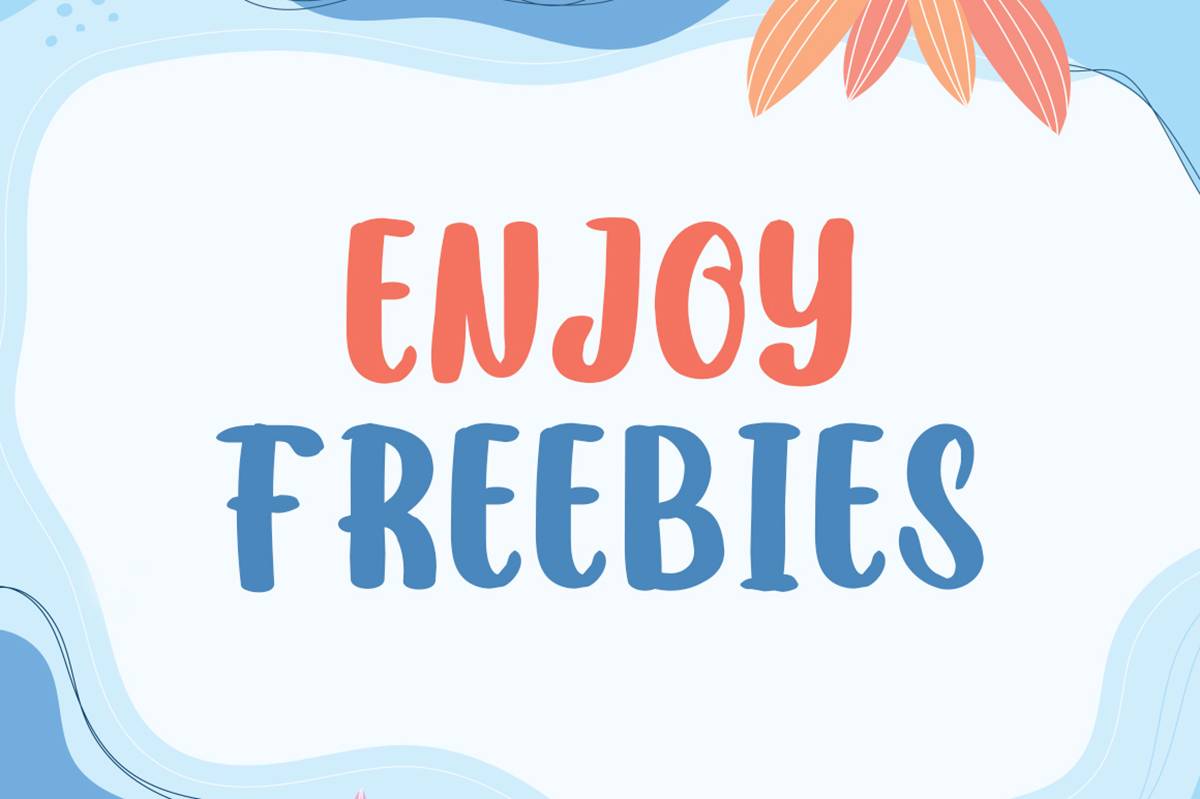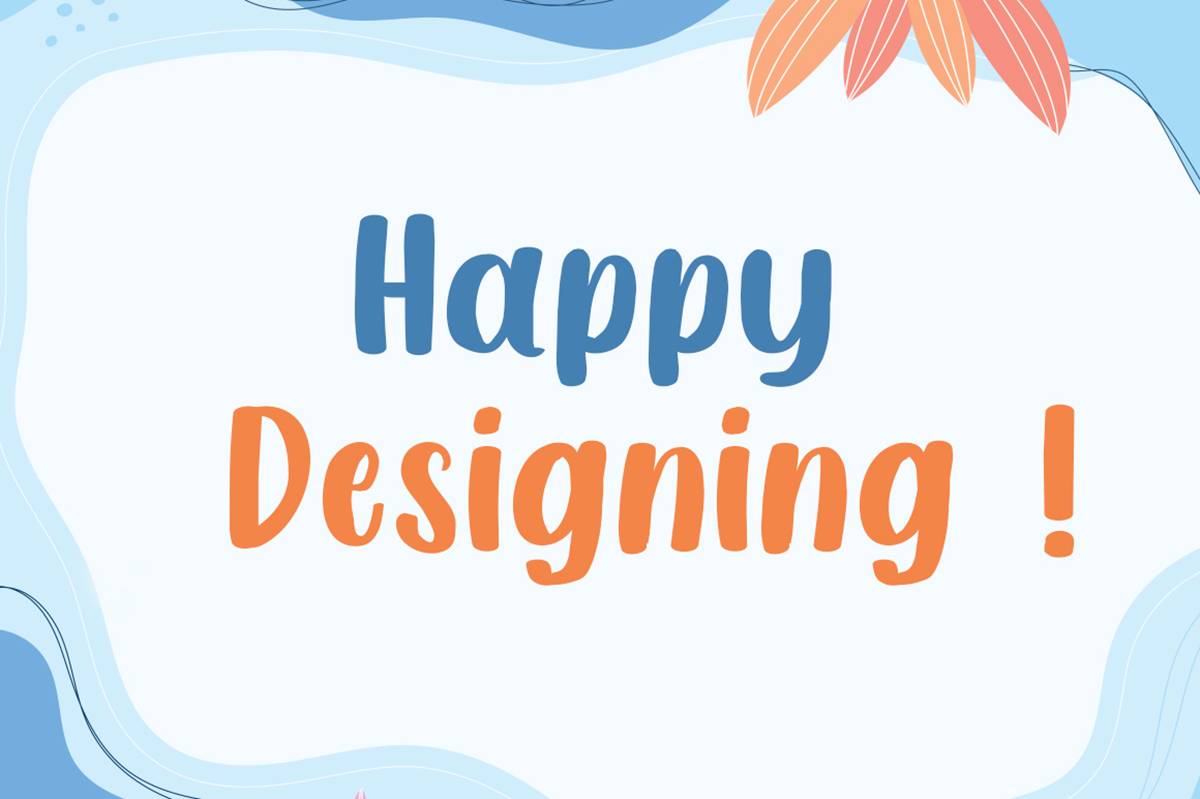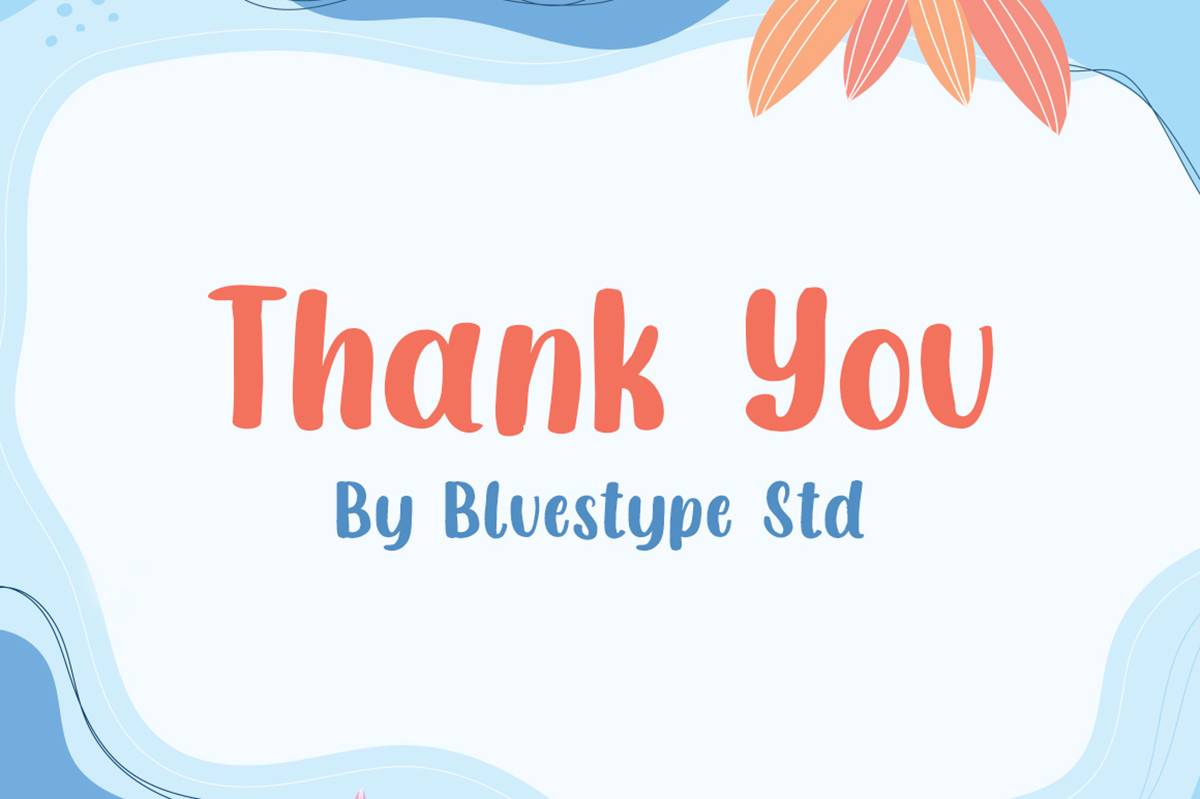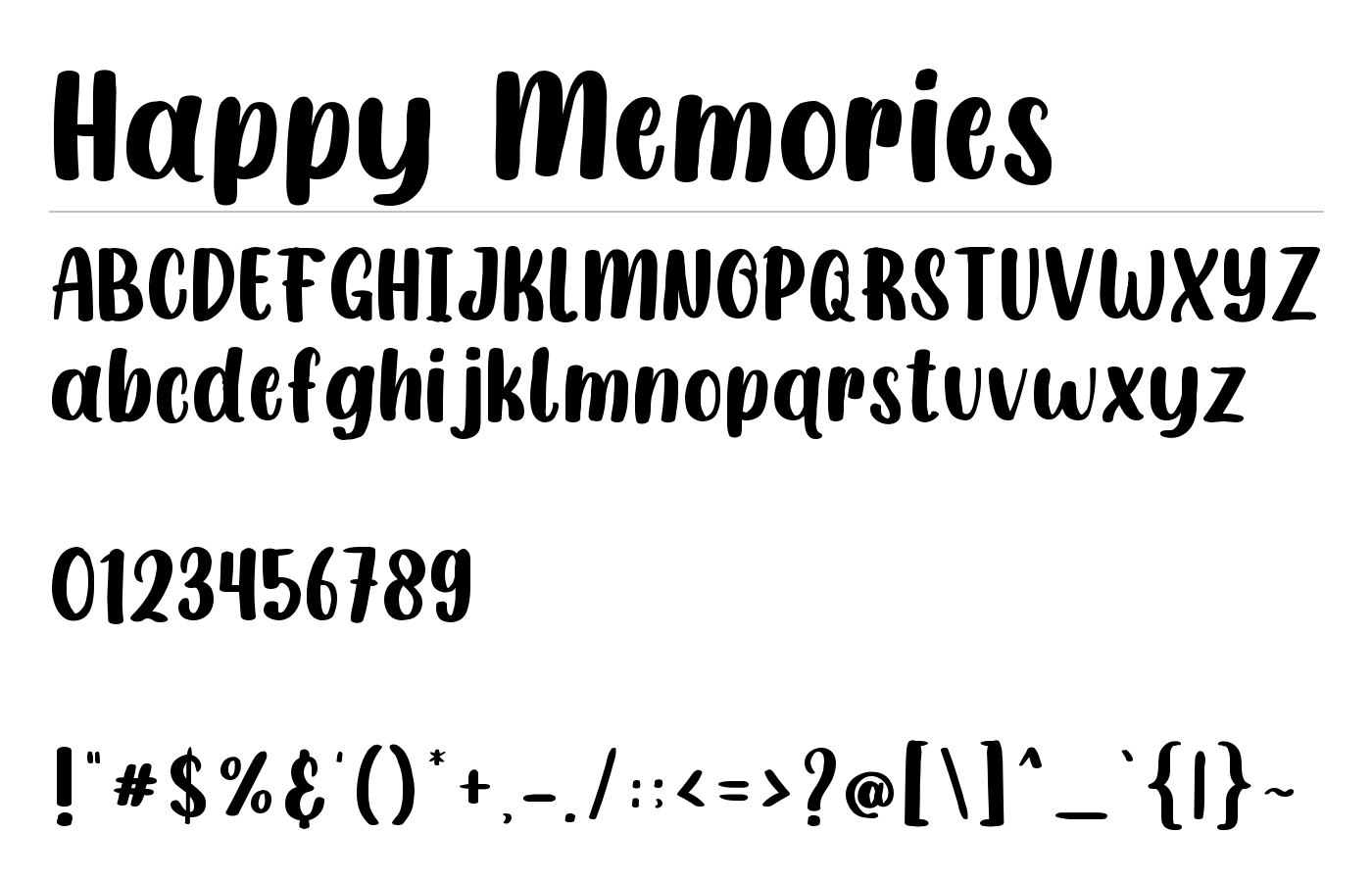
Happy Memories is a cheerful and friendly script-inspired sans serif font with a bold weight and slightly condensed width. Its playful, rounded letterforms and moderate contrast give it a warm, casual feel perfect for conveying joy and creativity. This font works great for logos, packaging, headlines, and branding projects that seek an approachable and happy tone.
Happy Memories Font
About Happy Memories Font